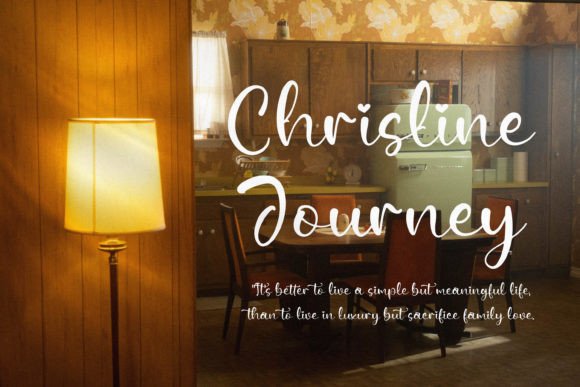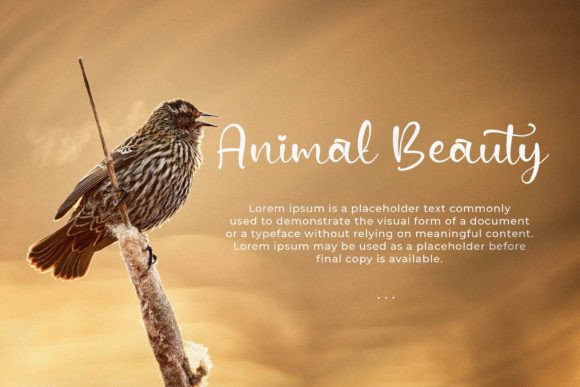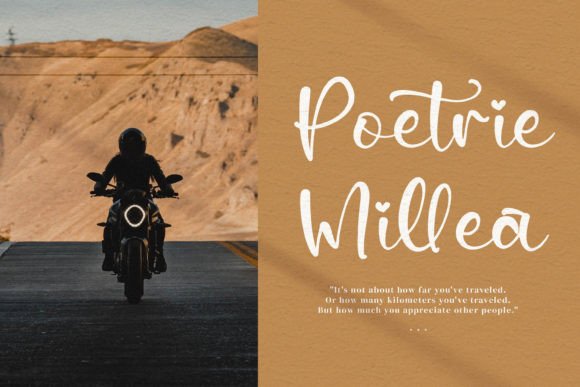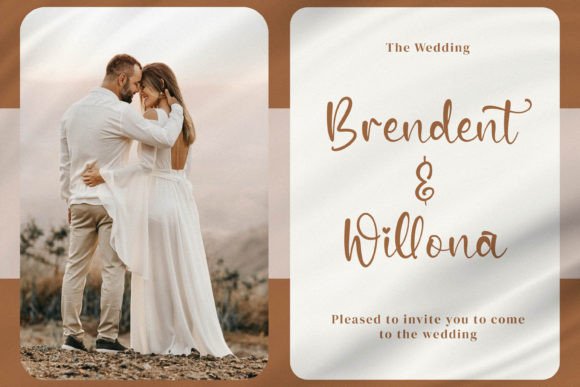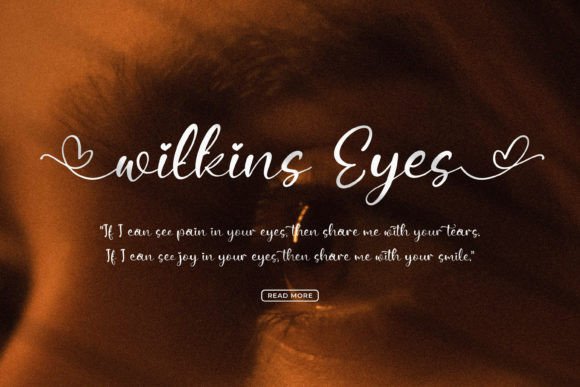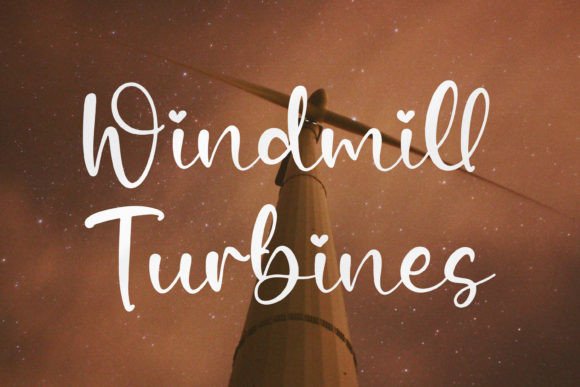
Aquella Lovely Font: Elevate Your Designs with Elegance and Sophistication
Are you tired of using the same old fonts in your designs? Look no further than Aquella Lovely, an exquisite handwritten font that’s sure to become your new favorite. With its classy calligraphic influences and contemporary feel, this stunning font is perfect for designers and crafters looking to add a touch of elegance and sophistication to their projects.
The Story Behind Aquella Lovely
Aquella Lovely is more than just a font – it’s a work of art. Masterfully designed to capture the essence of handwritten calligraphy, this beautiful font combines traditional techniques with modern flair. The result is a unique and captivating typeface that’s both timeless and trendy.
What Makes Aquella Lovely So Special?
So, what sets Aquella Lovely apart from other fonts? Here are just a few reasons why this font is sure to become a staple in your design toolkit:
- Classy Calligraphic Influences: Aquella Lovely’s roots in traditional calligraphy give it a level of sophistication and refinement that’s hard to find in other fonts.
- Contemporary and Fresh: Despite its classic influences, Aquella Lovely feels modern and fresh, making it perfect for designers who want to stay on-trend.
- Handwritten Charm: The imperfections and quirks of handwritten font give Aquella Lovely a warm, personal feel that’s perfect for adding a touch of personality to your designs.
- Versatile: Whether you’re working on a logo, invitation, or social media graphic, Aquella Lovely is versatile enough to adapt to any design style or format.
How to Use Aquella Lovely in Your Designs
Ready to fall in love with Aquella Lovely? Here are a few ideas for incorporating this stunning font into your designs:
- Wedding Invitations: Add a touch of romance and elegance to your wedding invitations with Aquella Lovely’s beautiful, flowing script.
- Logos and Branding: Use Aquella Lovely to create a sophisticated and memorable logo that sets your brand apart.
- Social Media Graphics: Add a touch of personality to your social media graphics with Aquella Lovely’s unique and charming handwritten style.
- Packaging and Labels: Use Aquella Lovely to add a touch of elegance and sophistication to your product packaging and labels.
Tips for Getting the Most Out of Aquella Lovely
To really make Aquella Lovely shine in your designs, here are a few tips to keep in mind:
- Experiment with Pairings: Try pairing Aquella Lovely with other fonts to create a unique and eye-catching combination.
- Play with Size and Color: Don’t be afraid to experiment with different sizes and colors to really make Aquella Lovely pop.
- Use it Sparingly: Because Aquella Lovely is such a beautiful font, it’s best used sparingly to really make an impact.
In conclusion, Aquella Lovely is a truly special font that’s sure to become a favorite among designers and crafters. With its classy calligraphic influences, contemporary feel, and handwritten charm, this stunning font is perfect for adding a touch of elegance and sophistication to any design project. So why wait? Fall in love with Aquella Lovely and bring your projects to the highest levels!